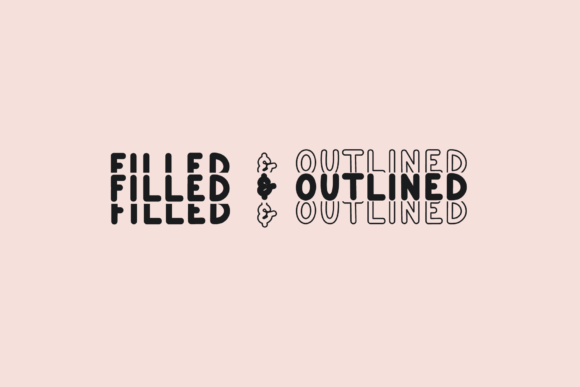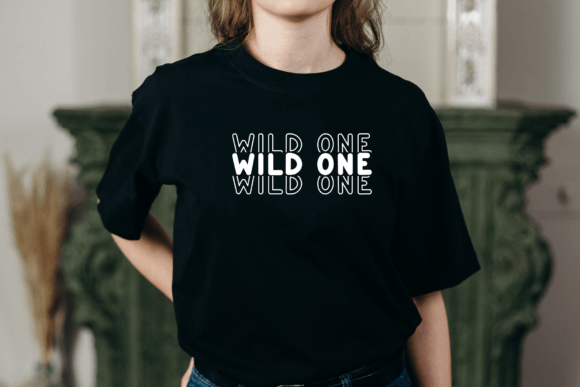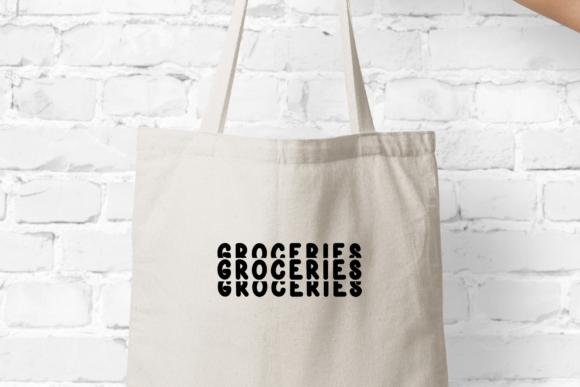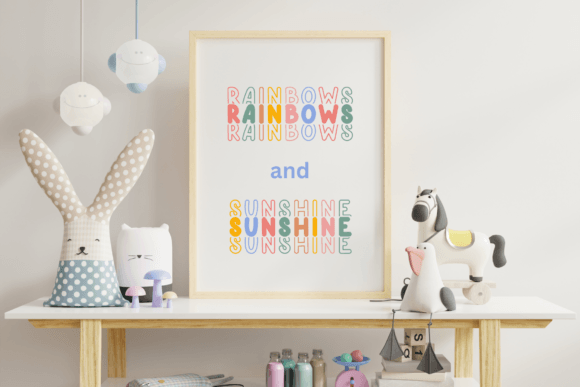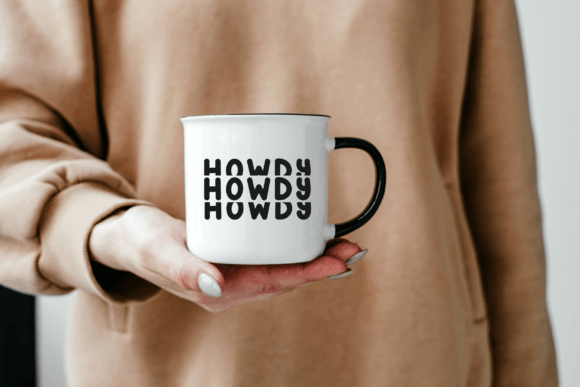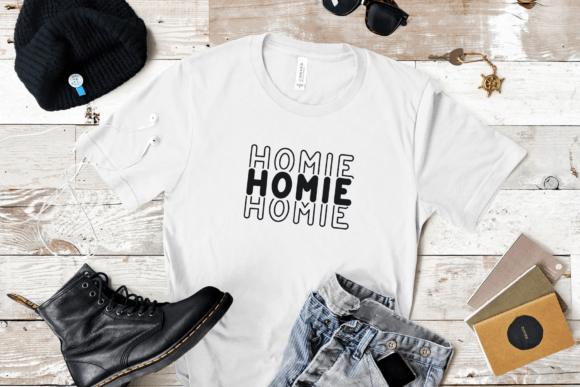
Introduction to Popple Font
Popple is a typeface designed to be used in headlines, titles, and short bursts of text.
It’s characterized by its bold and attention-grabbing appearance and features unique and creative letterforms that set it apart from more traditional text font styles .